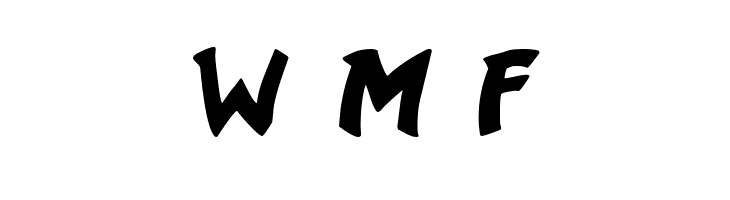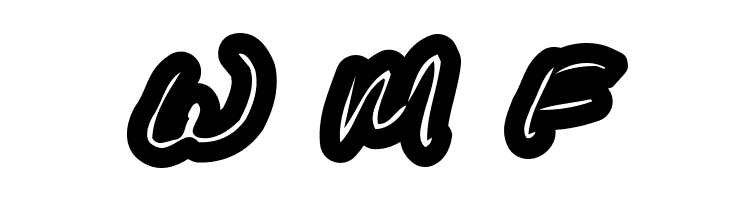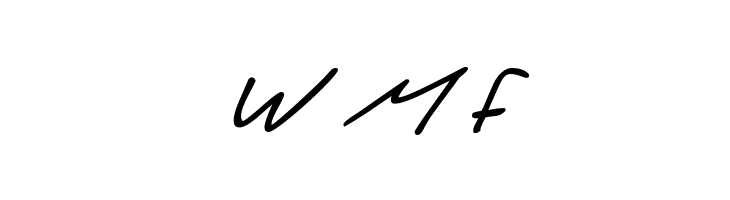
A bold, playful font with a whimsical and energetic style.
A playful, 3D decorative font with a hand-drawn, energetic style.
A bold, dynamic script font with a strong, energetic presence.
A bold, dynamic script font with smooth curves and a slanted style.
A bold, italic font with a dynamic and modern style.
A bold, playful font with angular, dynamic shapes.
A bold, italicized handwritten font with a dynamic and fluid style.
A bold, jagged font with an electrifying outline, perfect for dynamic and playful designs.
A bold, dynamic font with a playful, hand-drawn style and slanted, energetic characters.
A bold, oblique font with a modern and energetic style.
A bold, oblique font with a shaded outline for dynamic and energetic designs.
A bold, brush-style font with a rebellious and energetic feel.
A dynamic, oblique font with a modern, energetic style.
A bold, oblique font with a dynamic and modern style.
A bold, condensed, and playful font with a comic book style.
A dynamic, condensed, and oblique font with a modern, energetic style.
A bold, playful font with thick, rounded strokes and a dynamic, hand-drawn style.
A bold and italicized font with dynamic, sharply angled characters.
A bold, italicized font with extended, rounded letterforms and a playful style.
A bold, dynamic serif font with a strong, energetic presence.
A bold, slanted font with a dynamic and sporty style.
A bold, dynamic font with characters in circles and meteor trails, perfect for energetic designs.
A bold, cursive font with a playful and energetic style.
A bold, italicized handwritten font with a dynamic and fluid style.
A bold, oblique font with a dynamic and energetic style.
A bold, dynamic font with sharp, jagged edges and an energetic style.
A bold, dynamic font with sharp, angular strokes and a graffiti-like style.
A bold, jagged font with an energetic and dynamic appearance.